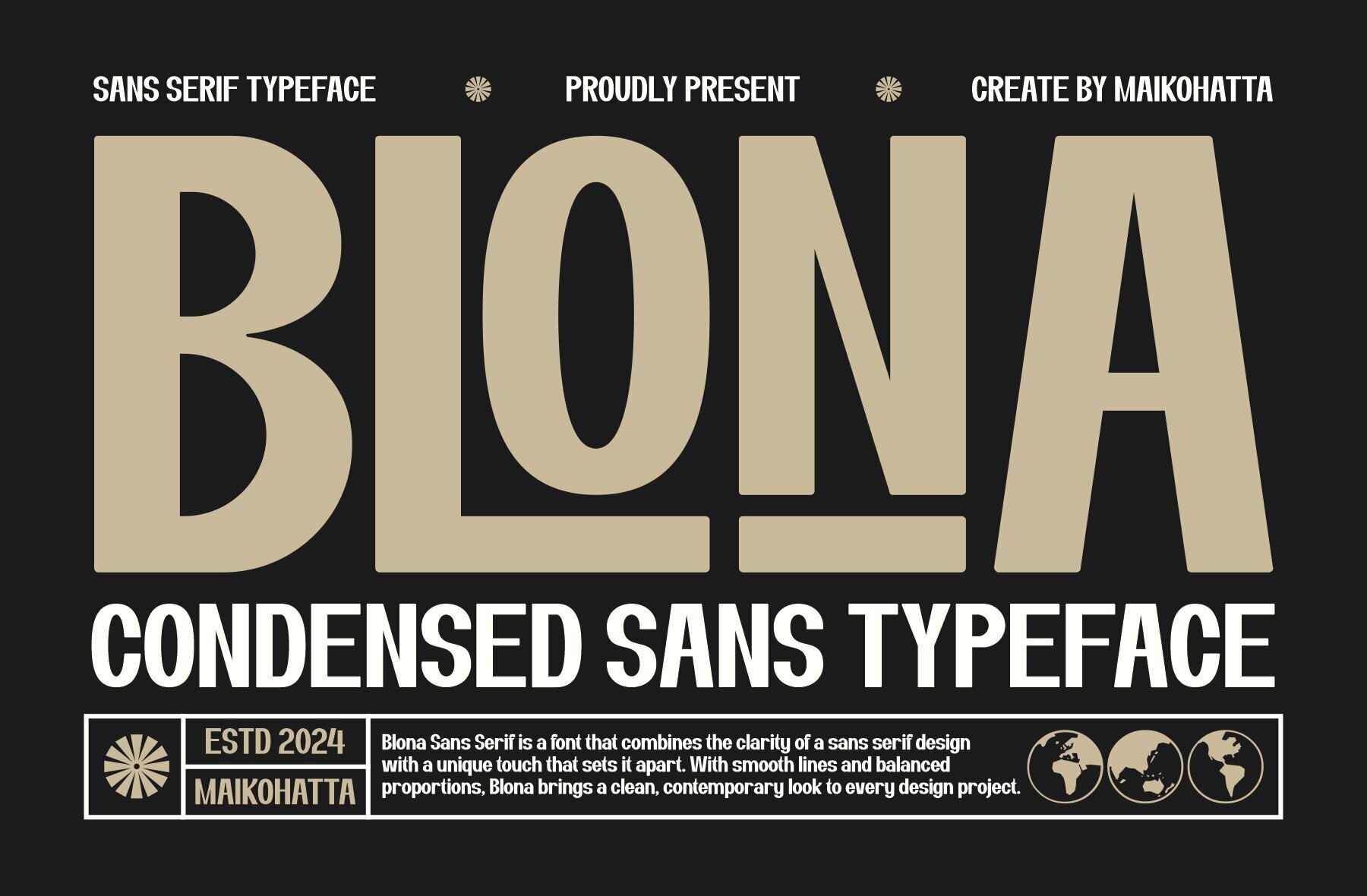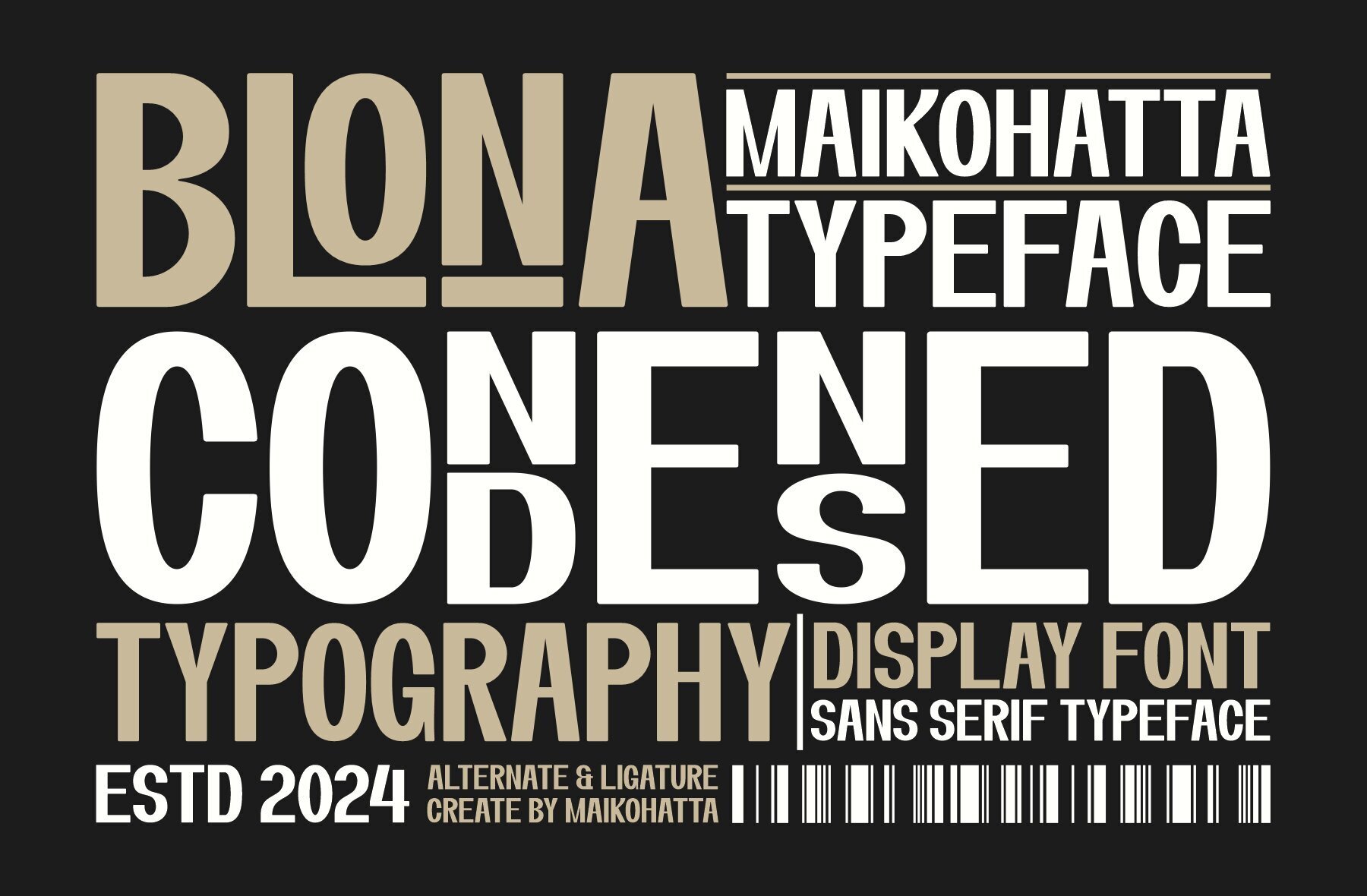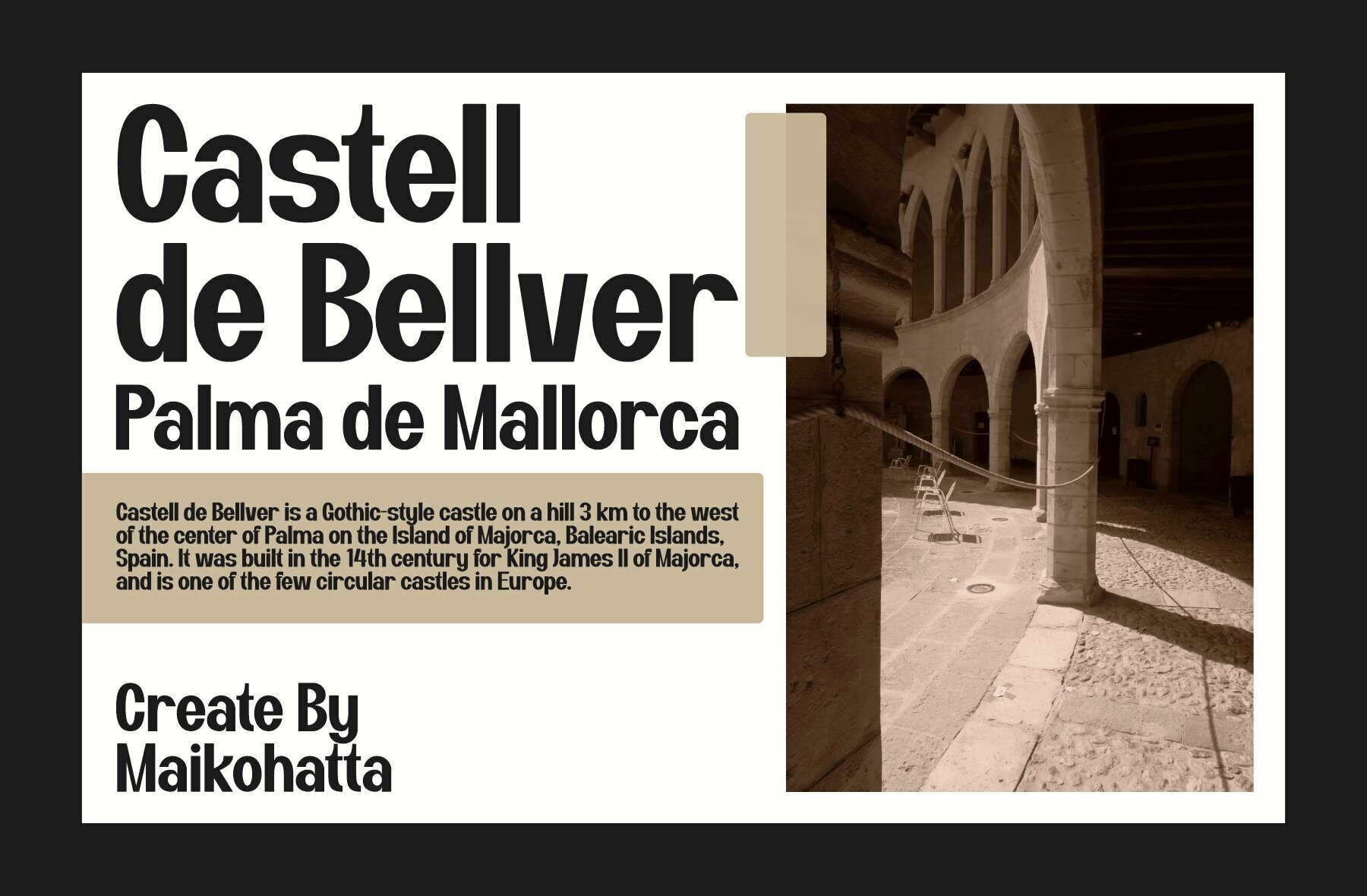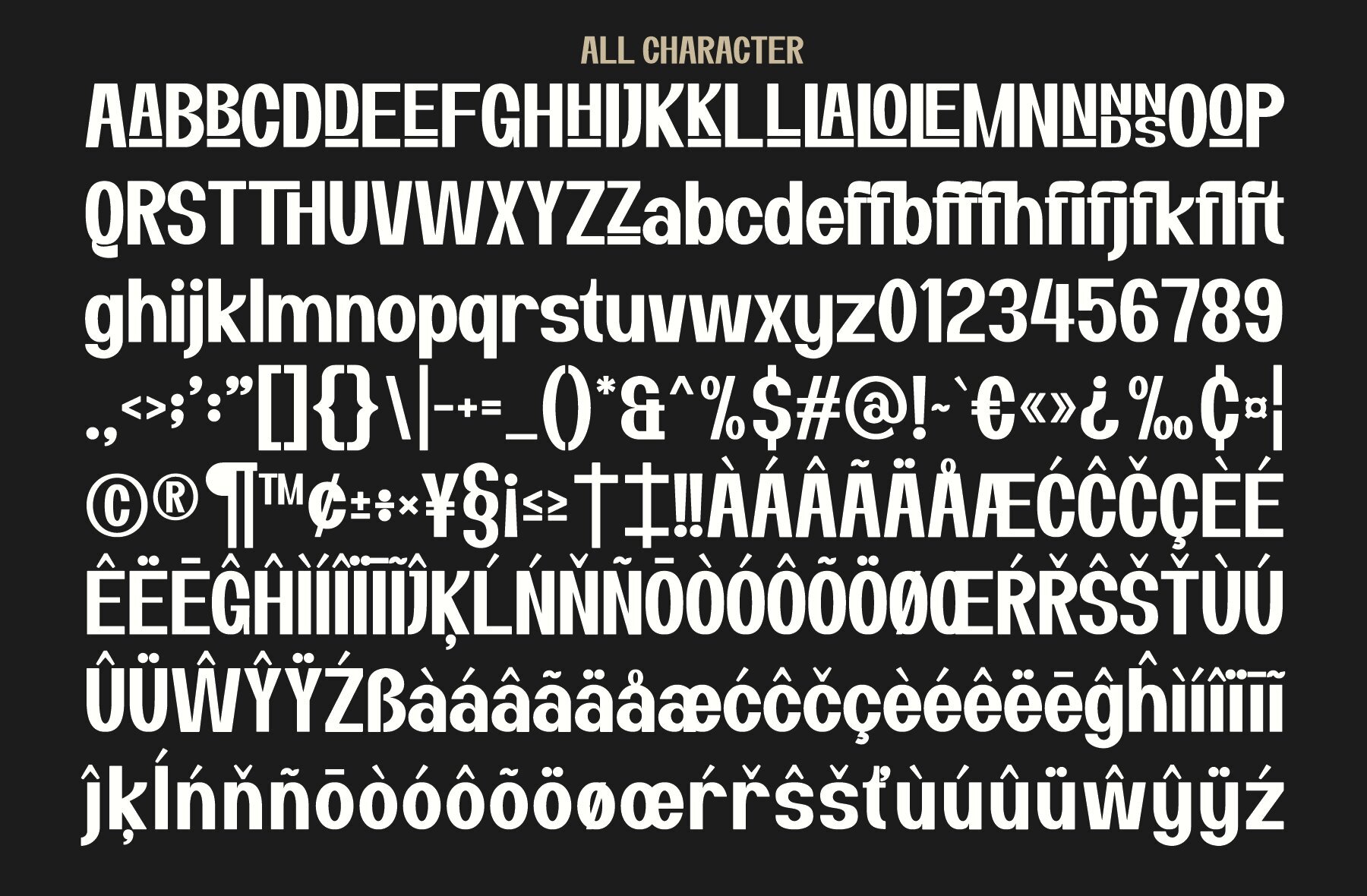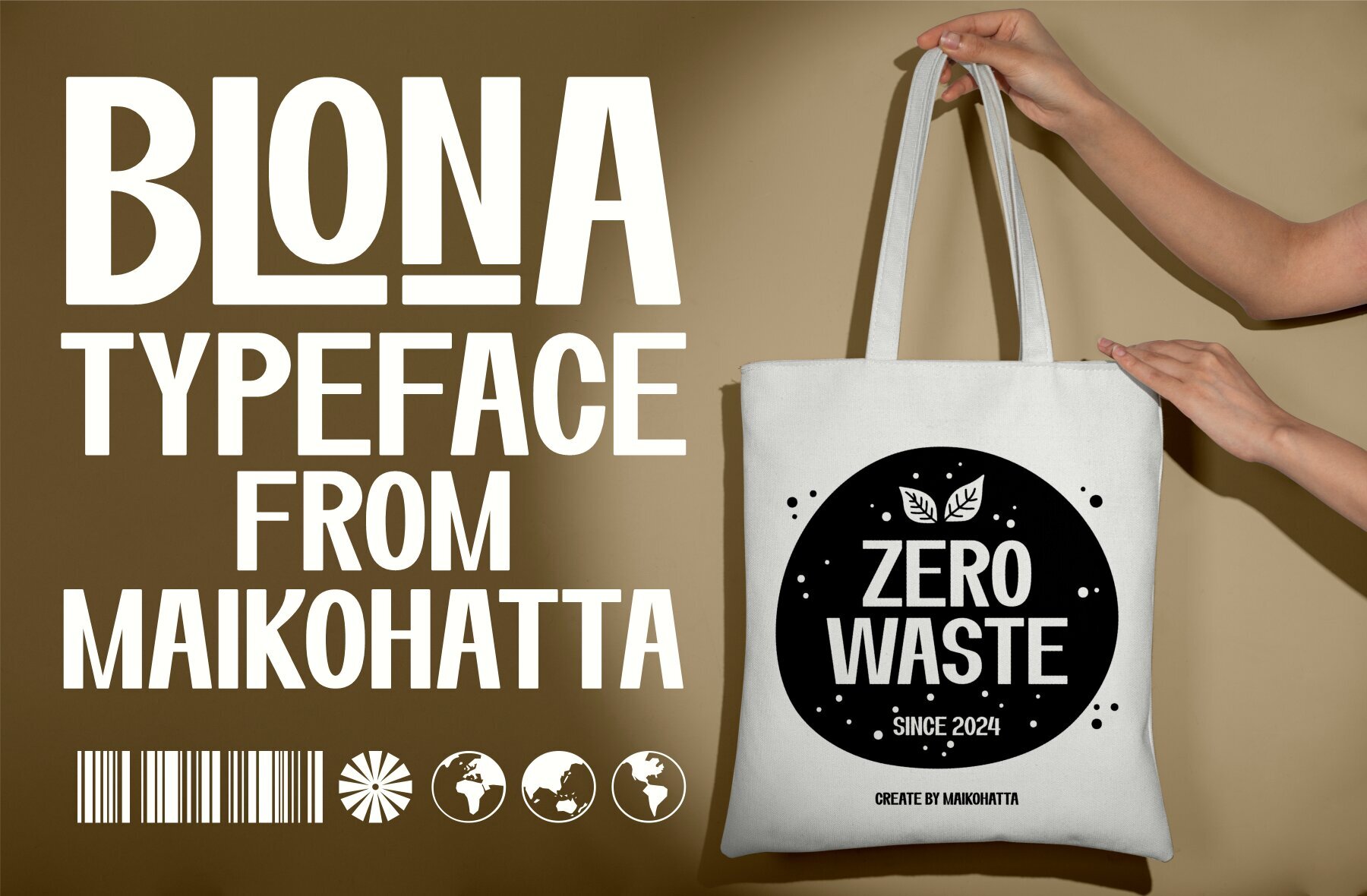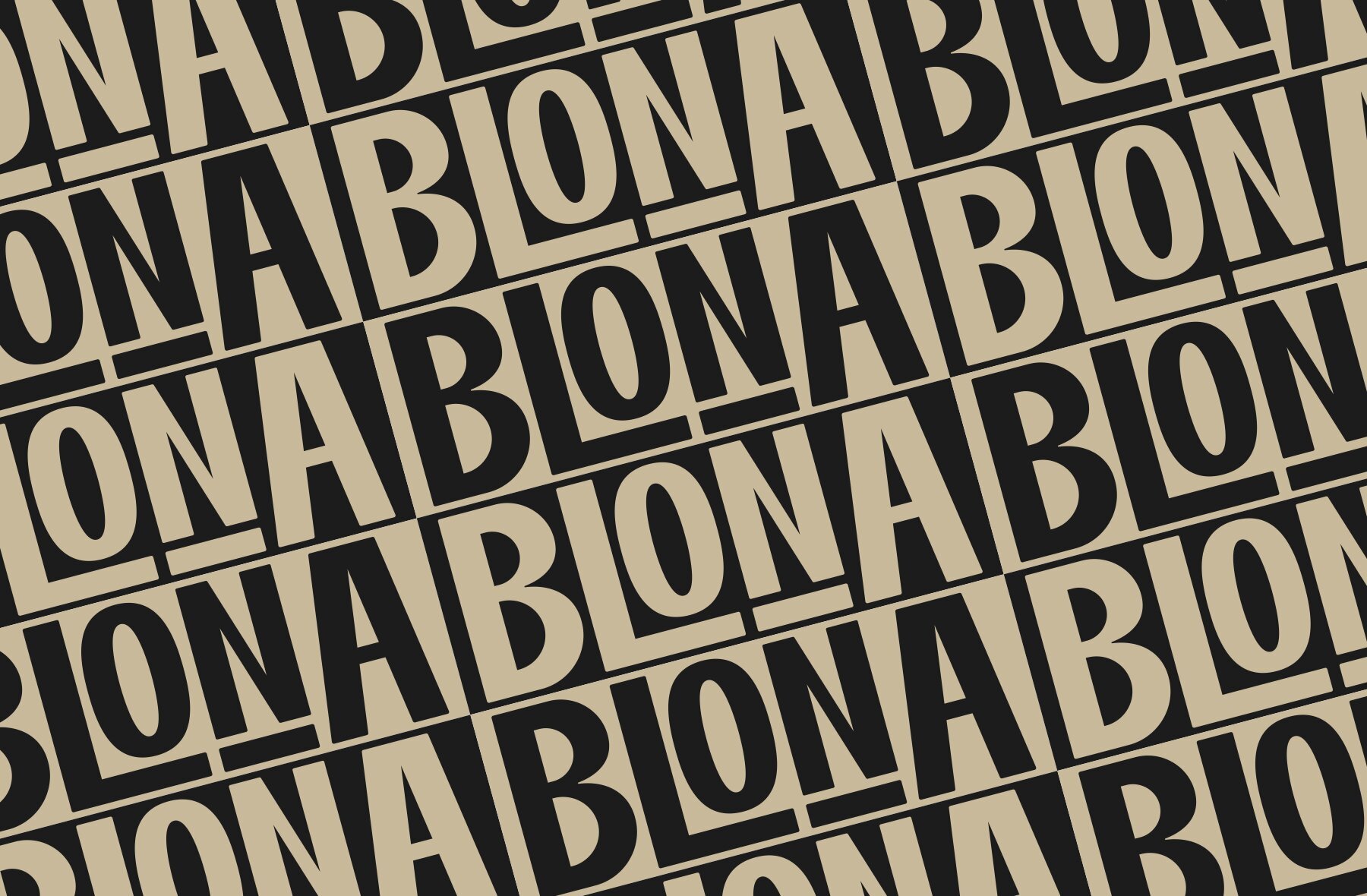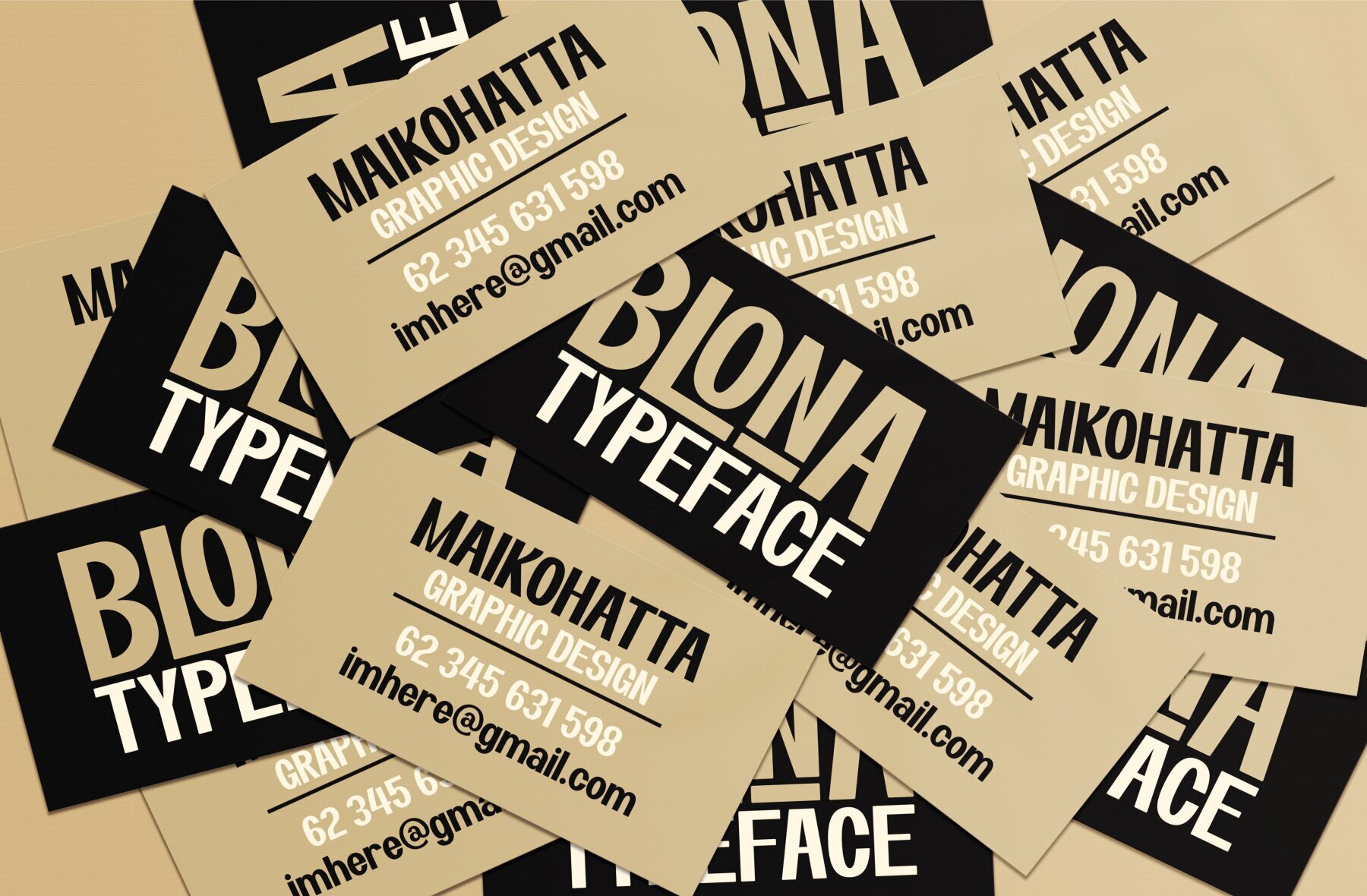
Blona Font
Blona Regular
Blona offers narrow and slim letterforms, making it a distinctive choice for graphic designs, print materials, and various media.Blona: A Condensed Sans Typeface